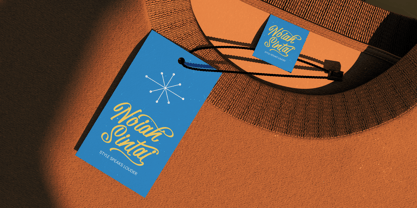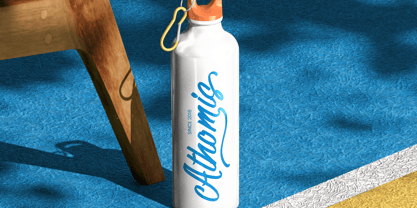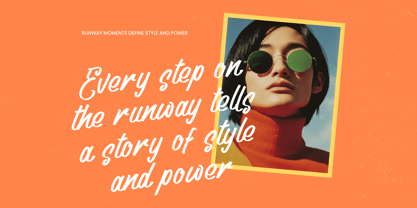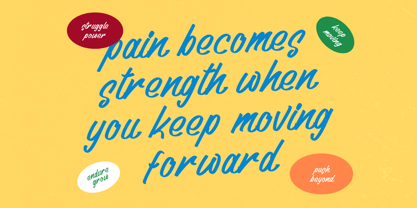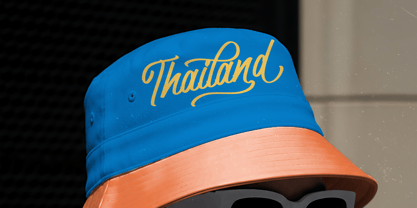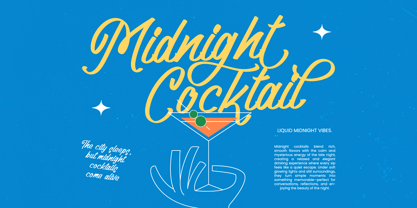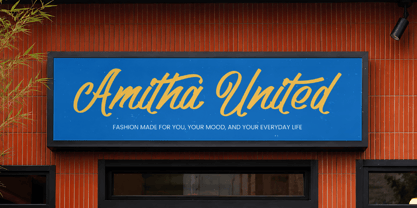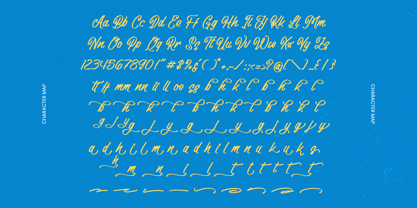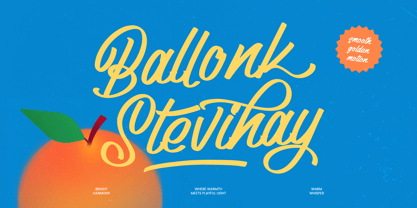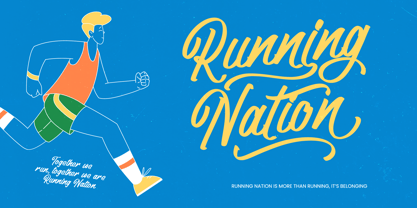
Ballonk Stevihay
The Ballonk Stevihay Font Family was designed by Heru Utama Putra and published by Stylishtype Studio. Ballonk Stevihay contains 2 styles and family package options. More about this family
Experience the perfect blend of energy and sophistication with Ballonk Stevihay - Bold Calligraphy Font. This expressive script typeface captures the essence of handcrafted elegance with its fluid strokes and confident weight. Designed to command attention, Ballonk Stevihay - Bold Calligraphy Font offers a bold calligraphy style that bridges the gap between casual charm and professional polish, making it an essential tool for designers seeking a unique visual identity.Expand your creative horizons with a typeface built for the modern designer. With its extensive multilingual support, Ballonk Stevihay - Bold Calligraphy Font adapts seamlessly across global markets, making it incredibly versatile for international projects. Beyond its linguistic reach, Ballonk Stevihay - Bold Calligraphy Font includes a rich collection of ligatures, alternates, and swashes, allowing you to customize every word and achieve a truly bespoke aesthetic in every layout.